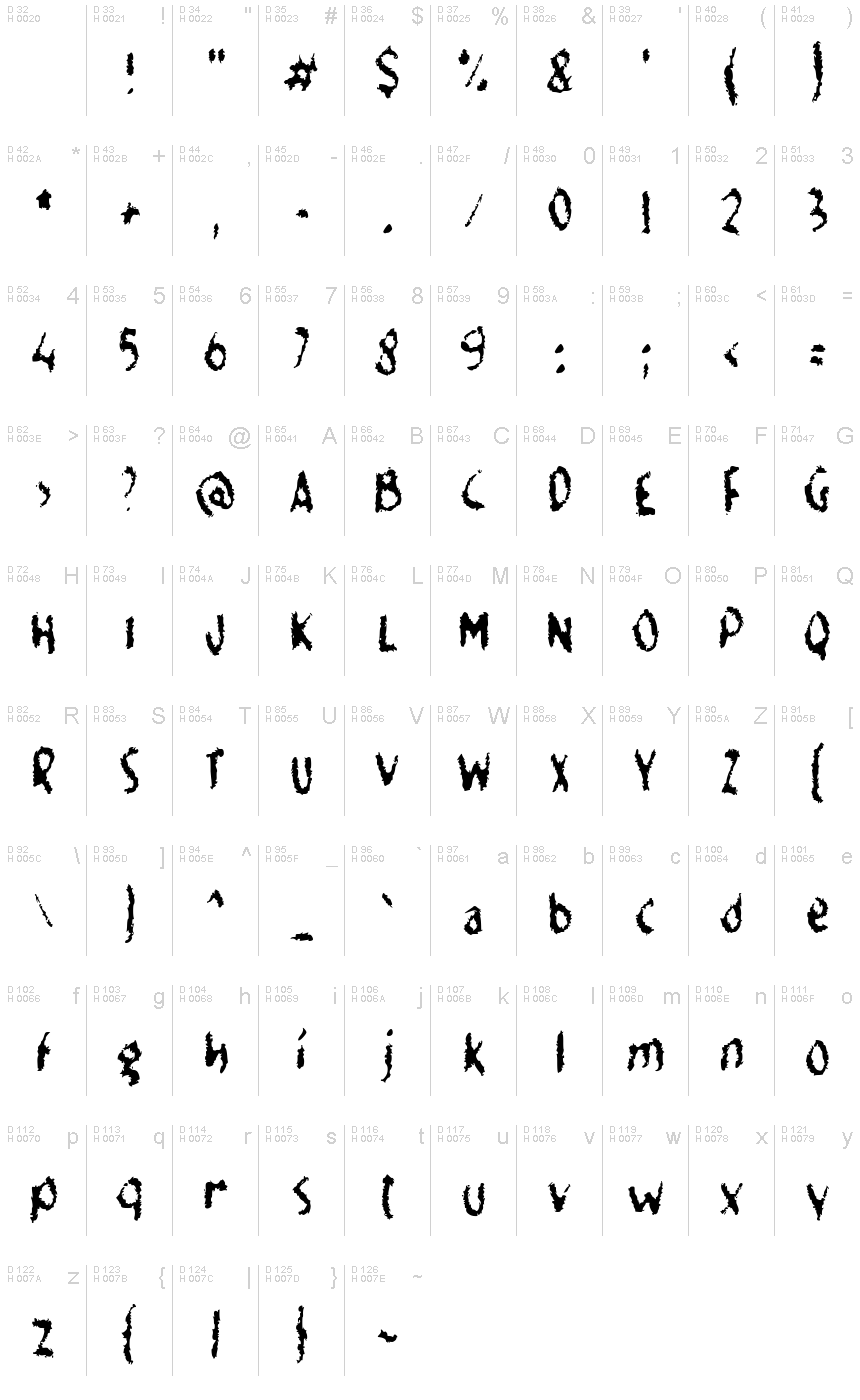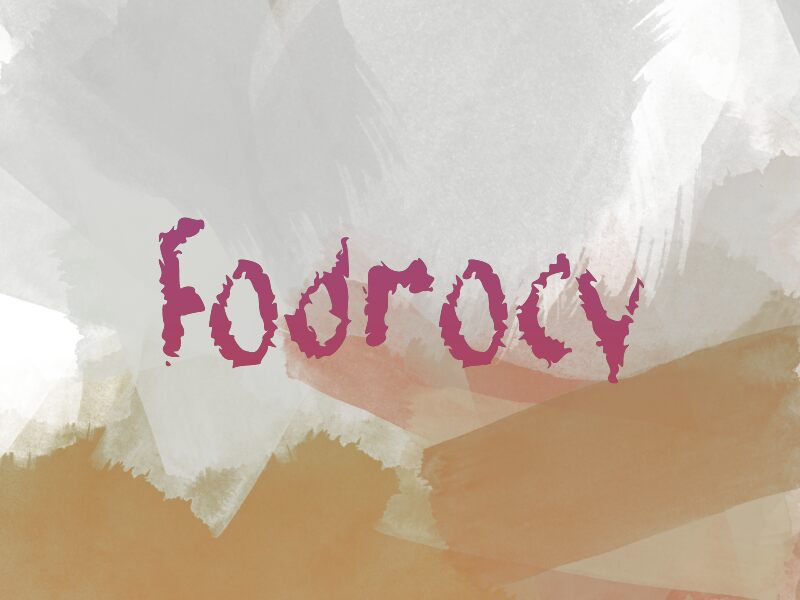
Fodrocy
Fodrocy is a spellbinding script font that captivates with its edgy, trash-inspired aesthetic. The condensed structure imbues the letters with an air of urgency and intrigue, while the jagged edges and dynamic form evoke a sense of rebellious creativity. Each character is uniquely distorted, giving the font a playful yet chaotic vibe.
Ideal for bold design projects, Fodrocy finds its place in street art, music posters, or anything needing an unmistakable flair. It adds personality to branding efforts yearning for an avant-garde touch. Fodrocy is not just a typeface; it’s a statement—perfect for those who dare to stand out and challenge convention.